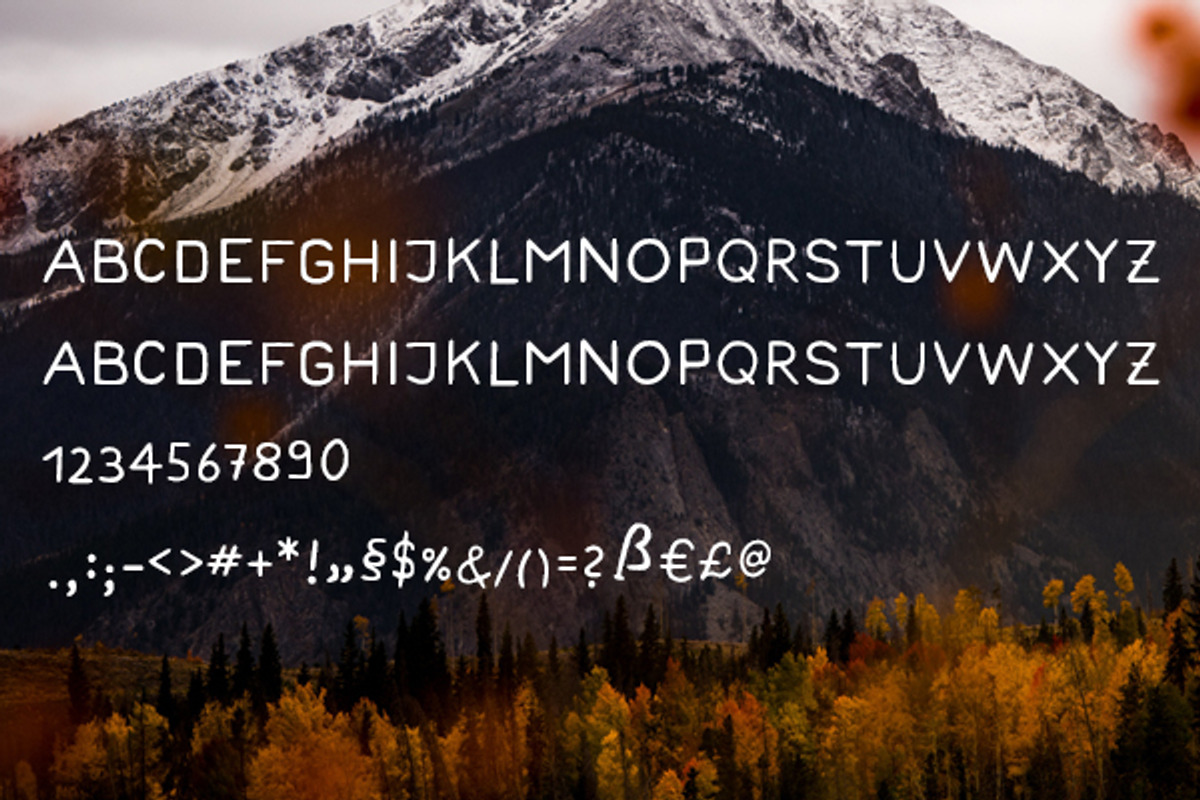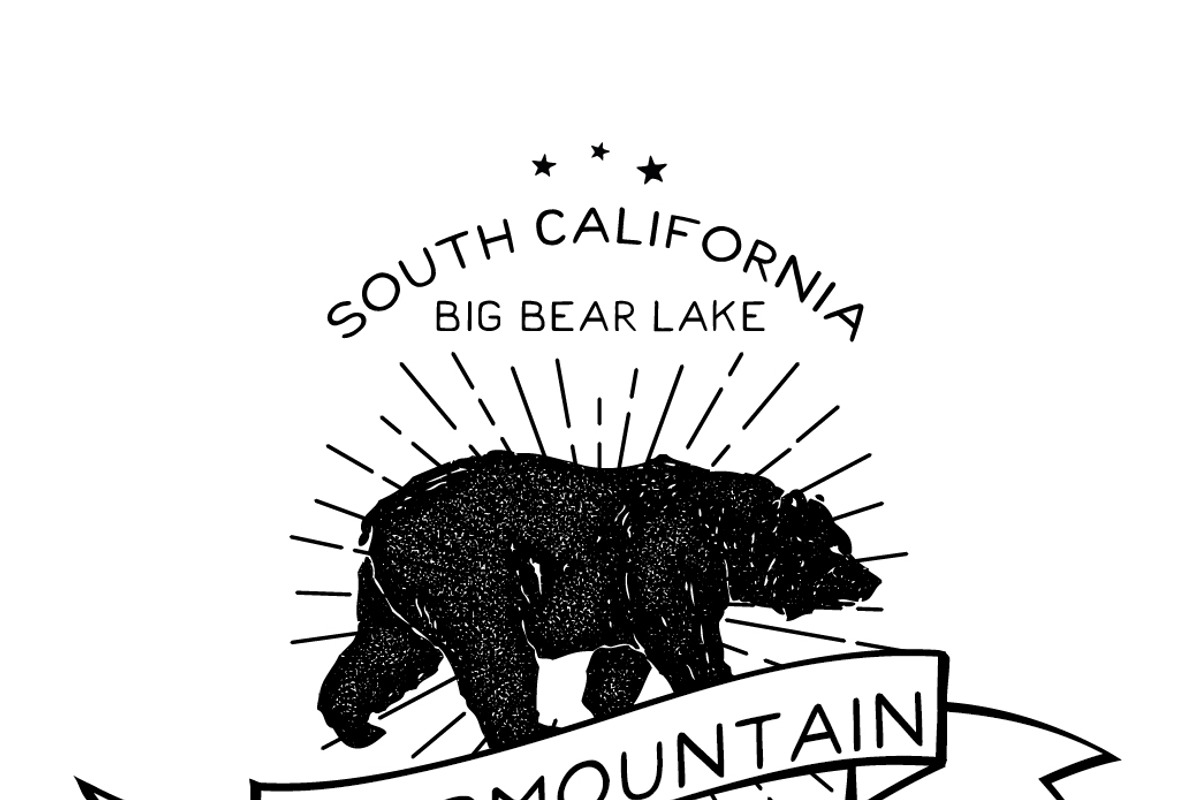
Bearmountain - Handmade Font
Bearmountain - Handmade Font by Studio FabianFischer is a font selected for branding, posters, packaging, typography.
- Designed are the uppercase letters for a fancy handcrafted look.
Why Bearmountain - Handmade Font is worth a look
Bearmountain - Handmade Font by Studio FabianFischer fits naturally into Branding, posters, packaging, typography.